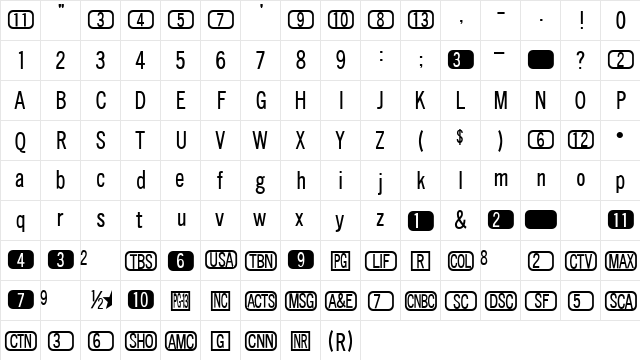
CHANL Plain
Design Context for CHANL Typeface
CHANL takes a measured approach to typography — its balanced proportions and neutral character make it a reliable workhorse for both digital and print work.
Pro Tip: Use CHANL in both headline and body roles to test its range before committing to a single application.